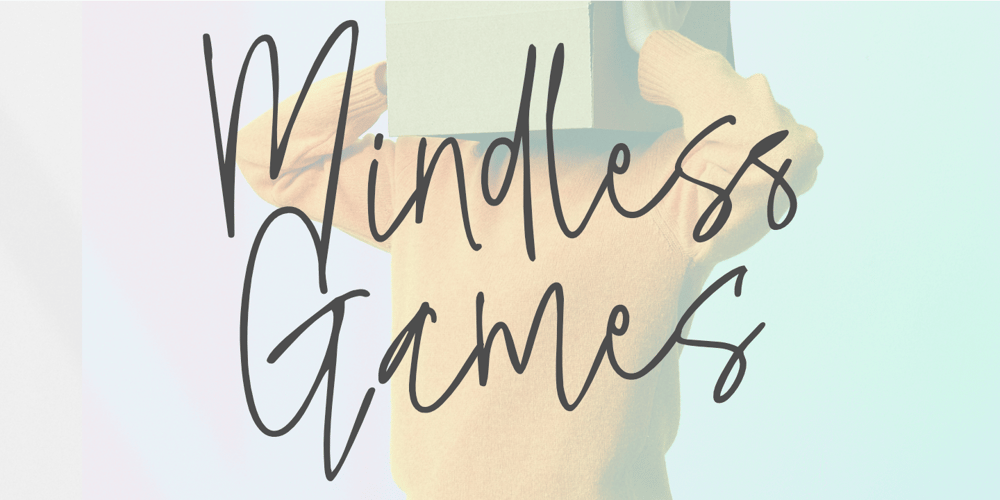
Mindless Games Font Family was designed by Aldy Sidik and published by Epiclinez. Mindless Games contains 1 styles and family package options. Are you looking for a classic and timeless idea for your next project? Let Mindless Games fuel your creativity! This fresh handwritten script font offers a natural look that’s perfect for anything creative and fun. Use it on social media to spice up your posts, use it in logos to create a new brand, or use it in lettering to show off your versatility.So what’s included : Standard Latin Numbers, symbols, and punctuations Ligatures and Swashes Multilingual Support. Accented Characters : ÀÁÂÃÄÅÆÇÈÉÊËÌÍÎÏÑÒÓÔÕÖØŒŠÙÚÛÜŸÝŽàáâãäåæçèéêëìíîïñòóôõöøœšùúûüýÿžß PUA Encoded and fully accessible without additional design software Simple Installations Works on PC & Mac Thank You!